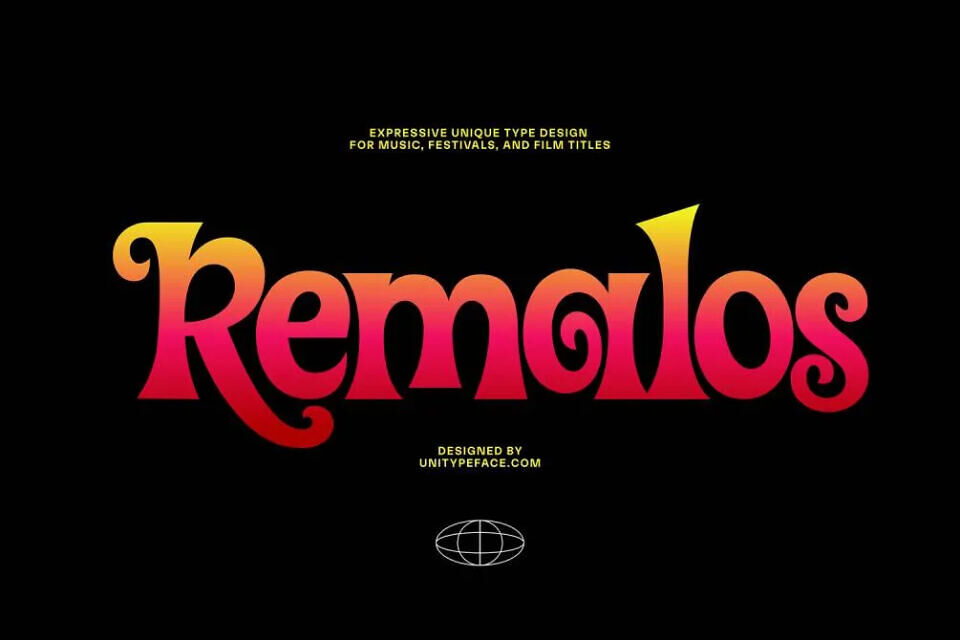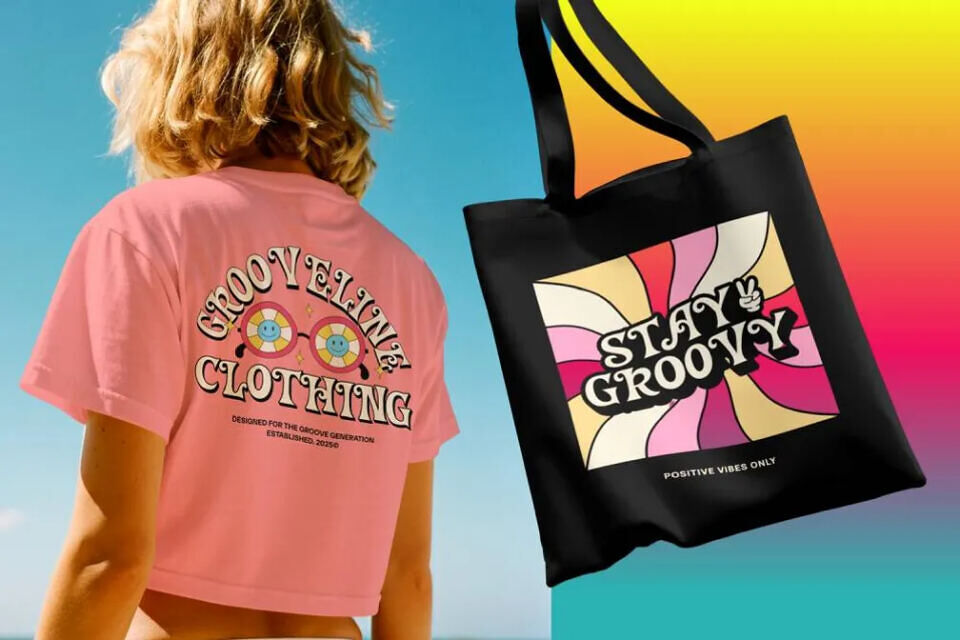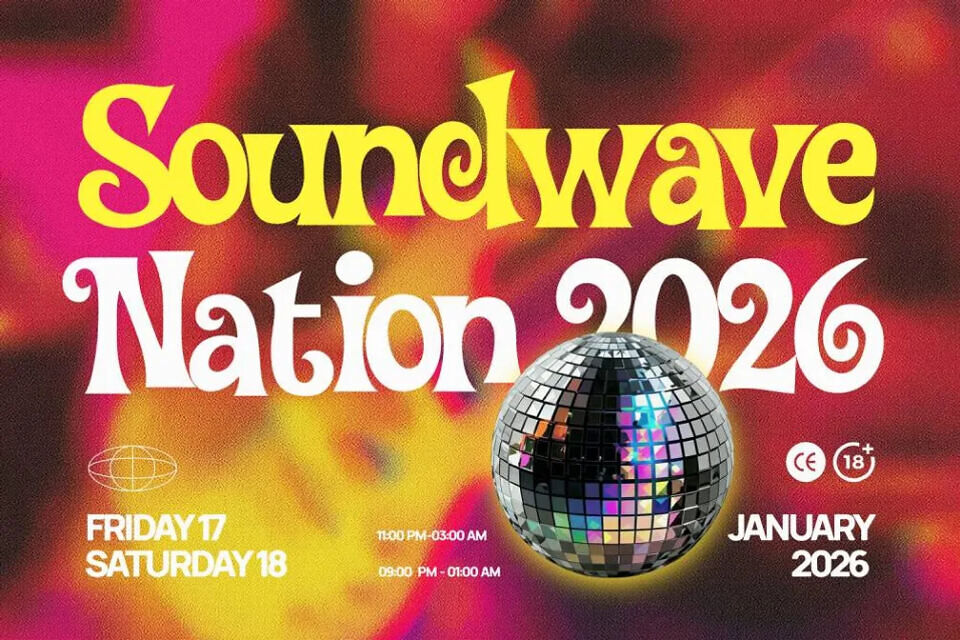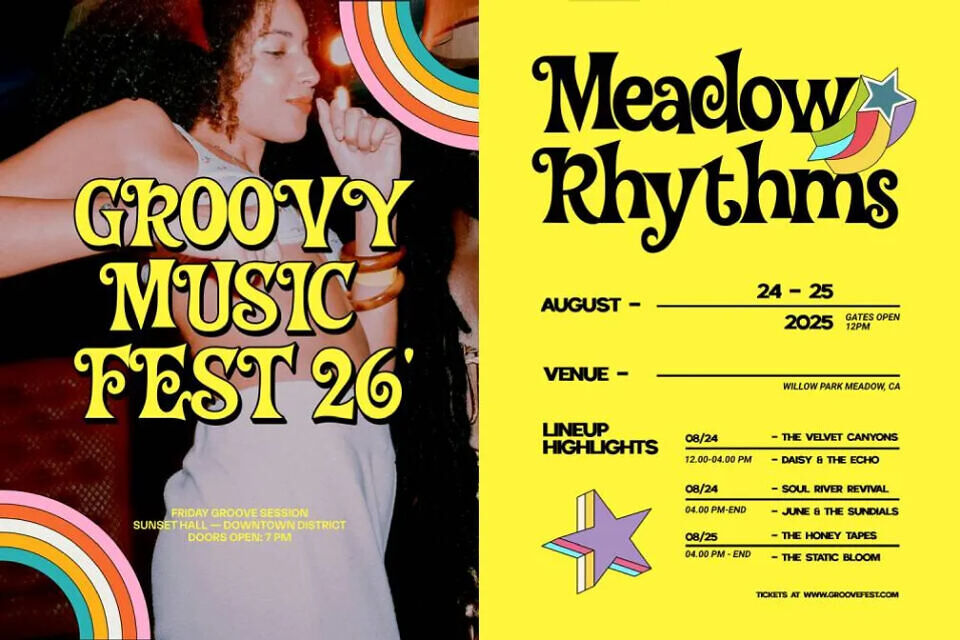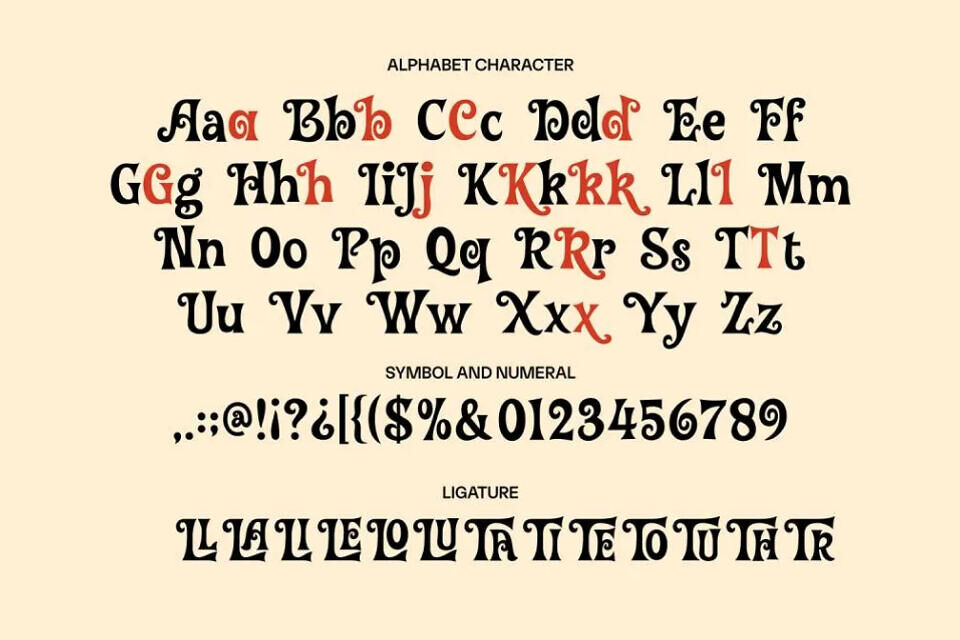
Remalos Font is a bold, retro-inspired display typeface with strong visual impact and clean letterforms, perfect for eye-catching headlines, posters, and branding designs.
Its 70s aesthetic blends playful vintage charm with modern clarity, offering a versatile look that adds personality to creative projects while remaining readable. Designed by GraphicSauce, Remalos combines artistic expression with a stylish, decorative flair ideal for standout visual typography.